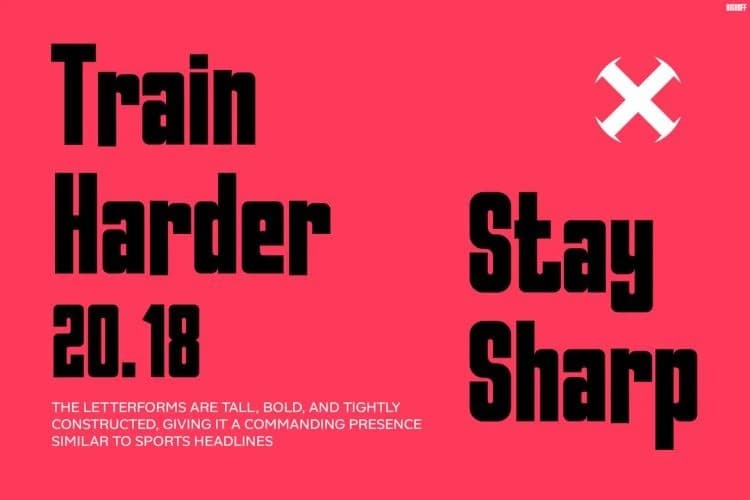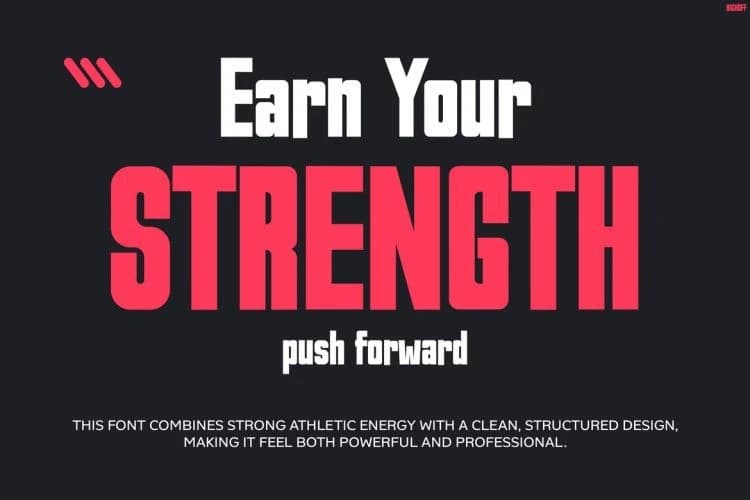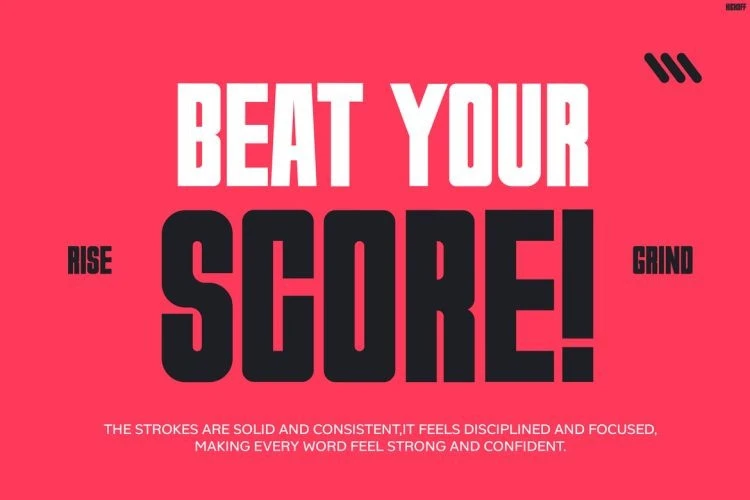
Kickoff Font
KICKOFF Font is a powerful, high-impact display typeface designed to dominate attention instantly. Moreover, its tall, condensed letterforms and sharp edges create a striking and modern athletic aesthetic.